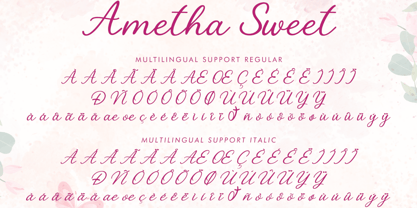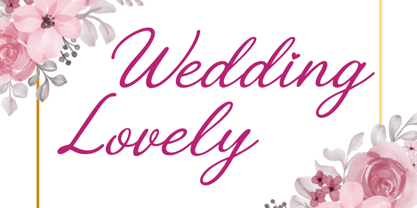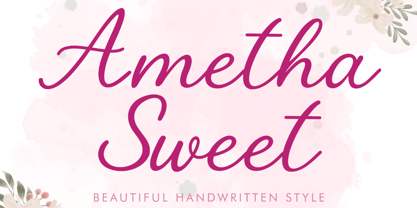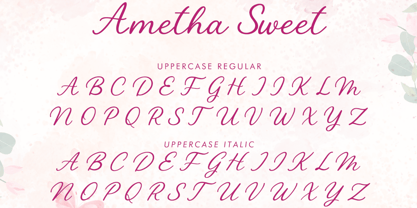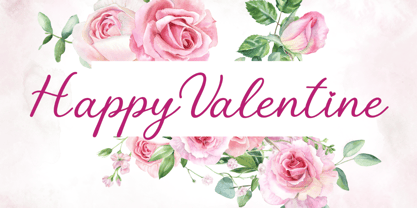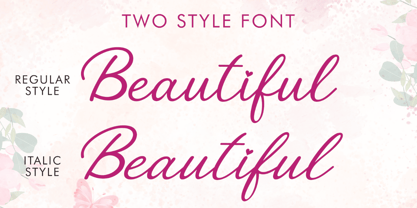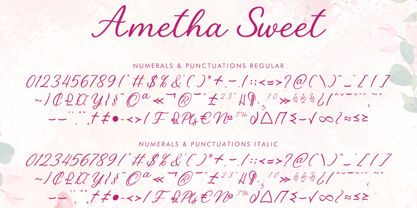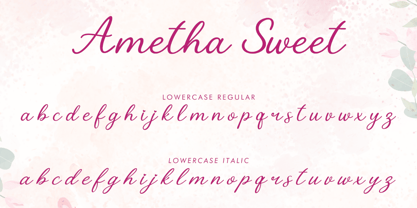
Ametha Sweet
La familia tipográfica Ametha Sweet fue diseñada por Isroni Yoga Prasetya y publicada por Yoga Letter. Ametha Sweet contiene 2 estilos y opciones de paquete familiar. Más información sobre esta familia
"Ametha Sweet" is a beautiful and pretty handwritten font. It features uppercase and lowercase letters, numerals, punctuation, and multilingual support. It's perfect for weddings, Christmas, Valentine's Day, invitations, Thanksgiving, print, banners, branding, stickers, spring, summer, fall, and autumn, book titles, social media, YouTube, stickers, logos, and more.